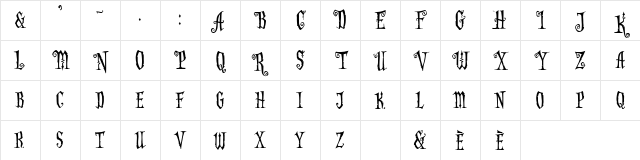
Addams Capitals Free Font
Addams Capitals
Style: Capitals
Addams Family
Addams Capitals
Design Context for Addams
Addams is a composed and adaptable typeface that performs quietly and consistently across a wide range of design contexts.